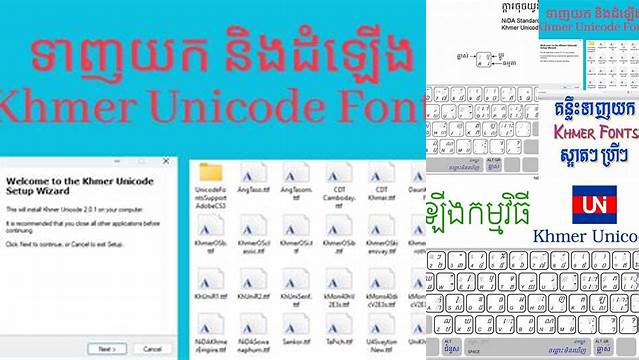
1. Understanding Khmer Unicode
So, what's the deal with Khmer Unicode? Basically, it's a standard that allows computers to consistently display Khmer script. Before Unicode, displaying Khmer text could be a real headache, with different systems using different encodings, leading to gibberish instead of beautiful Khmer characters. Understanding Khmer Unicode is crucial because it ensures compatibility across different devices and platforms. This means that when you use a Khmer Unicode font, your text will be displayed correctly on any computer that also supports Unicode, regardless of the operating system or software being used. Without Unicode, you might see boxes or other strange symbols instead of the Khmer script. This standardization simplifies the process of creating and sharing documents in Khmer, making it easier for people to communicate and access information in their native language. In the past, the lack of a unified standard meant that documents created on one system might not be readable on another, leading to significant challenges in data exchange and communication. With Unicode, these problems are largely eliminated. So grab some coffee, and let’s dive into the world of Khmer fonts and make your digital life a little easier!
2. Why Use Khmer Unicode Fonts?
Using Khmer Unicode fonts is super important for a bunch of reasons. First off, it ensures that your Khmer text shows up correctly no matter where it's being viewed. Imagine sending an important document to someone only for them to see a bunch of weird symbols – not ideal, right? Using Khmer Unicode Fonts avoids that problem entirely. Secondly, it's all about compatibility. Unicode is a universal standard, so whether you're on Windows, macOS, Android, or iOS, Khmer Unicode fonts will generally work without a hitch. This is especially crucial for websites, as you want to make sure your content is accessible to everyone, regardless of their device. Another key advantage is that Unicode fonts support a wide range of characters and symbols. This includes not just the basic Khmer alphabet but also various diacritics and special characters used in the language. This comprehensive support ensures that you can accurately represent any Khmer word or phrase. Furthermore, using Unicode fonts helps to preserve the integrity of your data. When you use non-Unicode fonts, there's a risk that your text will become corrupted or unreadable when transferred to a different system. Unicode eliminates this risk by providing a consistent and reliable encoding scheme. For businesses and organizations that rely on Khmer language communication, using Unicode fonts is essential for maintaining professionalism and ensuring clear communication with customers and partners. It also promotes inclusivity by making it easier for people who use Khmer as their primary language to access and engage with digital content.
4. Popular Khmer Unicode Fonts to Download
Okay, let's talk about some popular Khmer Unicode fonts that you can download. There are quite a few out there, each with its own unique style and characteristics. Knowing the popular choices can really narrow down your search. When it comes to Popular Khmer Unicode Fonts to Download, Limoun S1 is always a great pick because of its clean, readable design, making it perfect for both body text and headings. This font is widely used in various publications and websites, thanks to its versatility and clarity. Another fantastic option is DaunPenh, known for its elegant and traditional look. It's a favorite for formal documents, invitations, and anything that needs a touch of sophistication. Daun Penh is particularly well-suited for projects that aim to evoke a sense of history and culture. For a more modern feel, consider Khmer OS. This font family includes a variety of weights and styles, giving you plenty of options to choose from. Khmer OS is a great choice for digital media, such as websites and mobile apps, as it's designed to be easily readable on screens. Another widely used font is MoulPali. It has a very distinctive and traditional Khmer style. It's often used in religious texts and traditional documents. Remember, the best font for you will depend on the specific project you're working on. So, take some time to experiment with different fonts and see what works best. You can download font samples to test them out before committing to a particular font. Also, keep an eye out for font bundles that include multiple Khmer Unicode fonts. These bundles can be a great way to expand your font collection and have more options at your disposal.